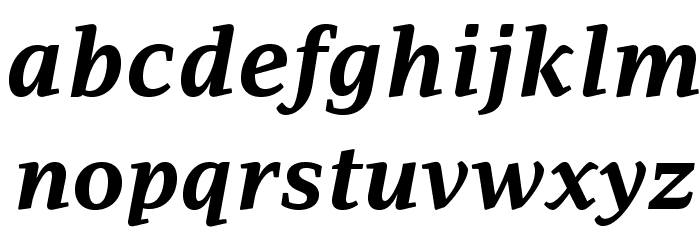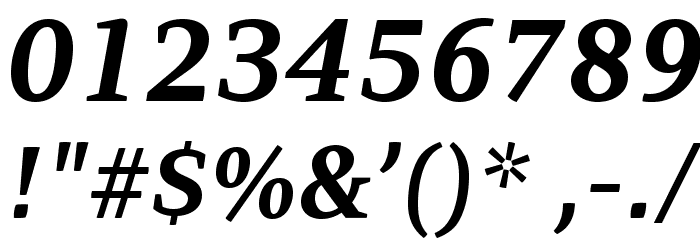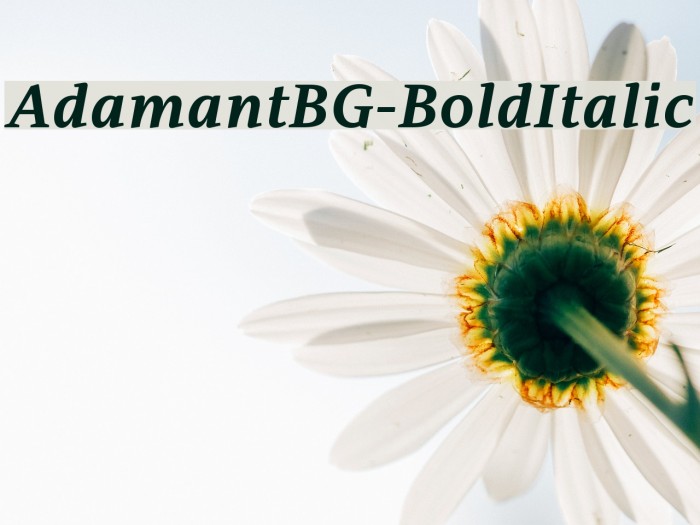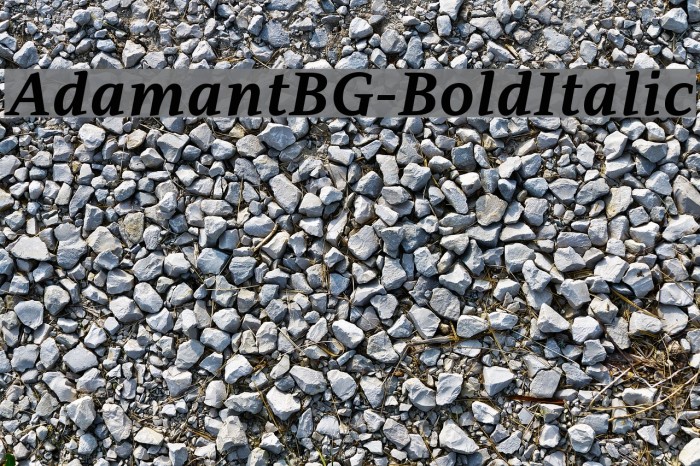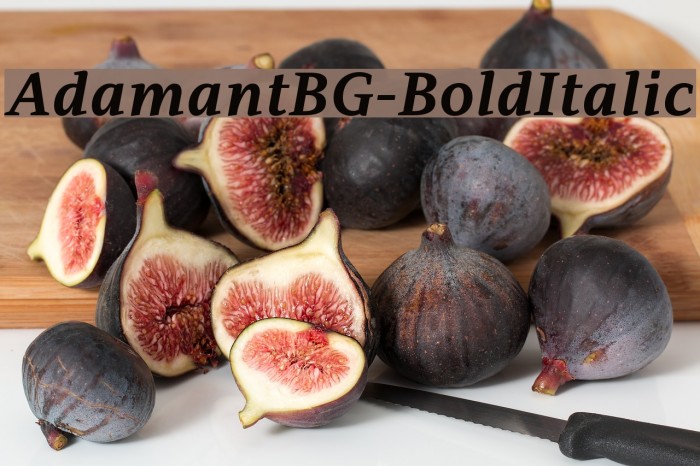
AdamantBG-BoldItalic Font
This font exhibits a bold and italic style, characterized by its strong presence and dynamic slant. The uppercase letters are well-defined with a slight curve, adding elegance and readability. The lowercase letters maintain a consistent flow, enhancing the font's cohesive appearance. Numerals are clear and distinct, ensuring legibility in various contexts. Special characters are crafted with precision, making them suitable for diverse applications. The overall design balances boldness with sophistication, making it versatile for both formal and creative uses.
A bold and italic font with a dynamic slant and elegant curves.
- Proposed Projects: Ideal for branding, headlines, posters, and editorial design.
- Category: Serif